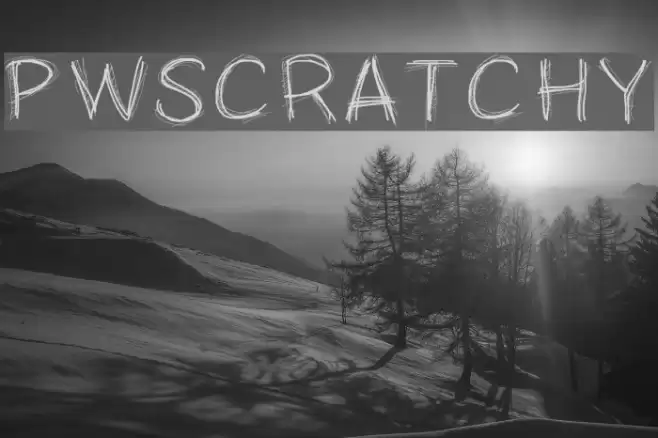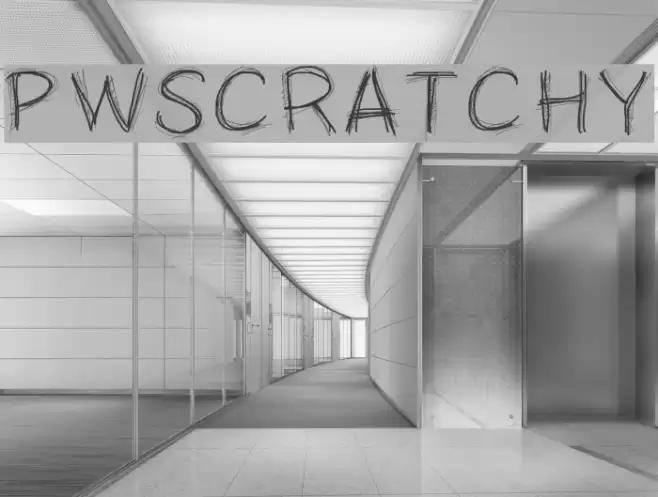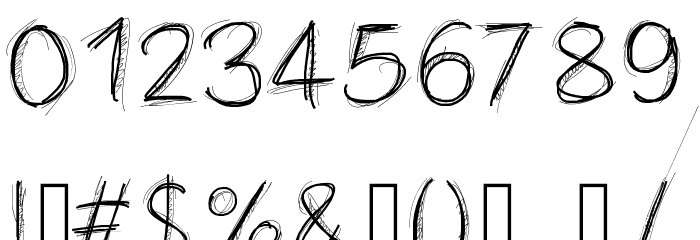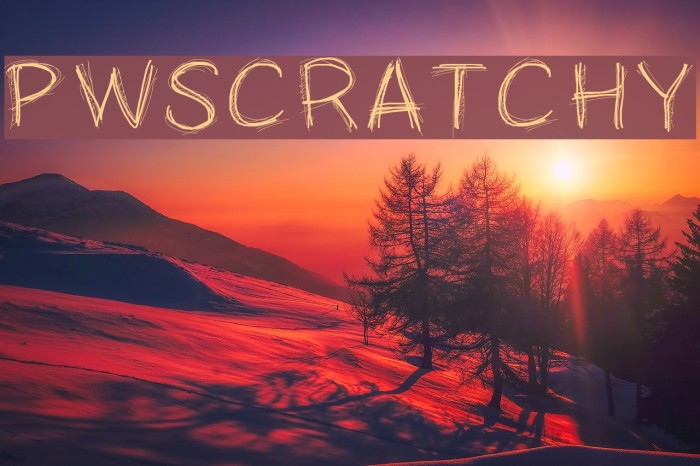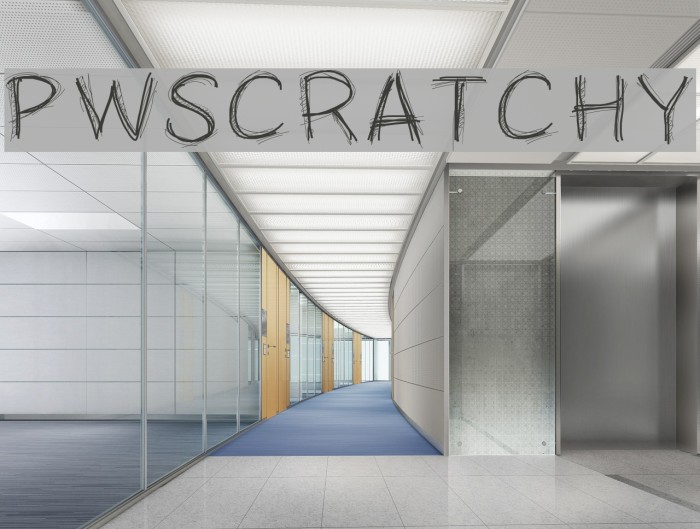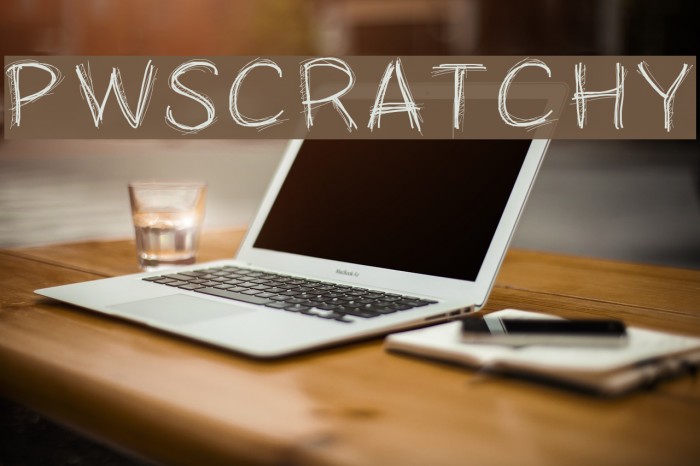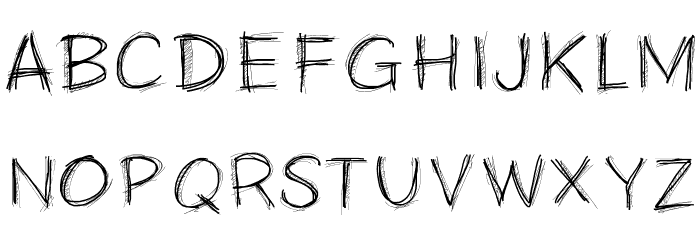
PWScratchy Font
PWScratchy Description
This font features a unique, hand-drawn style with a scratchy, textured appearance. Each character is crafted with irregular lines, giving it a raw and edgy look. The letters are slightly tilted, adding to the informal and dynamic feel of the typeface. The uppercase and lowercase letters maintain a consistent style, with the numbers and special characters following suit. This font is perfect for projects that require a touch of creativity and individuality, such as artistic designs, posters, or branding that aims to stand out.
A scratchy, hand-drawn font with a textured, edgy appearance from Uncategorized fonts.
- Proposed Projects: Ideal for artistic designs, posters, branding, and creative projects.
- Use Case: Headlines, Logos, Artistic designs